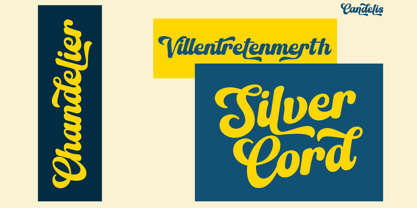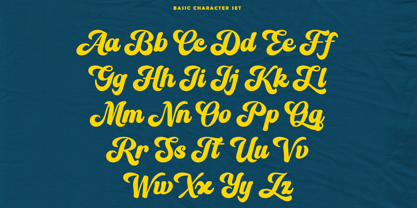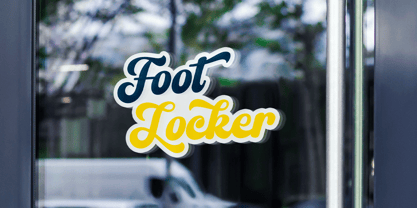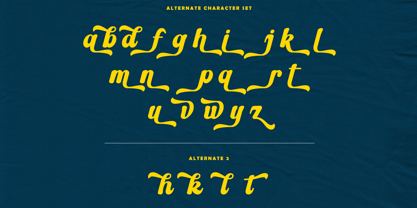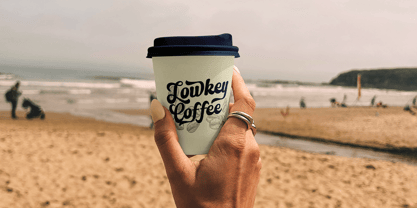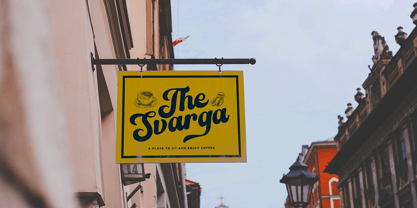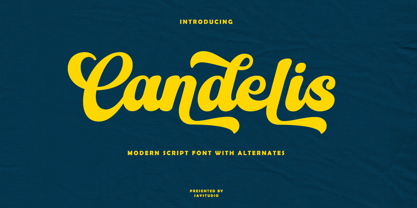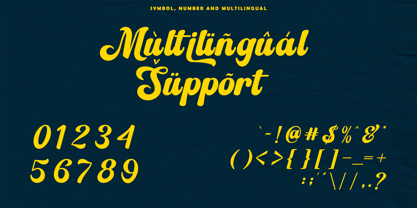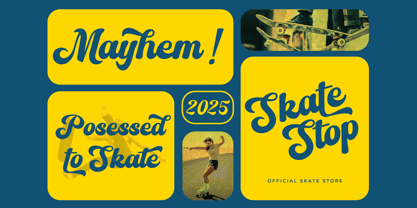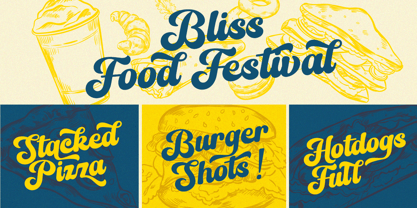
Candelis
by Say Studio
The Candelis Font Family was designed by Mussyayin and published by Say Studio. Candelis contains 1 styles. More about this family
Candelis Font is a stylish font It has both modern and retro look. Comes with alternatives and ligatures, helps to create stunning logos, quotes, posts, blog posts. branding projects, magazine imagery, wedding invitations, and much more.
Designers: Mussyayin
Foundry: Say Studio